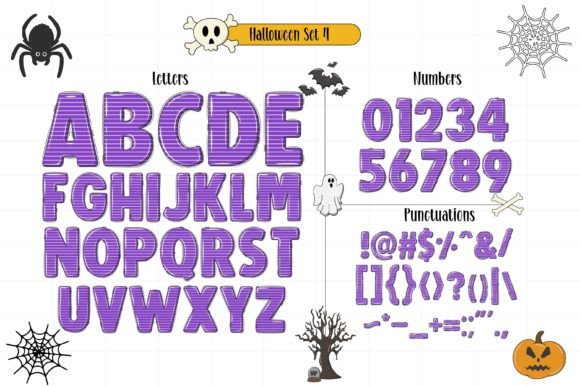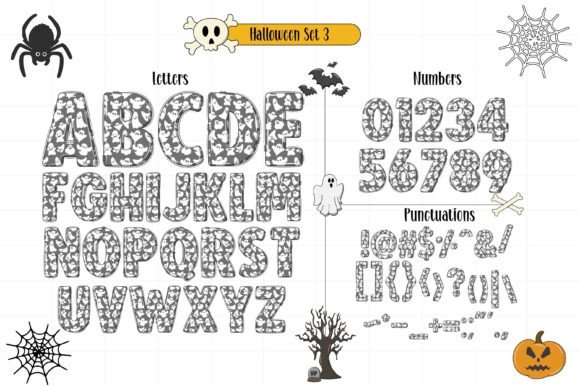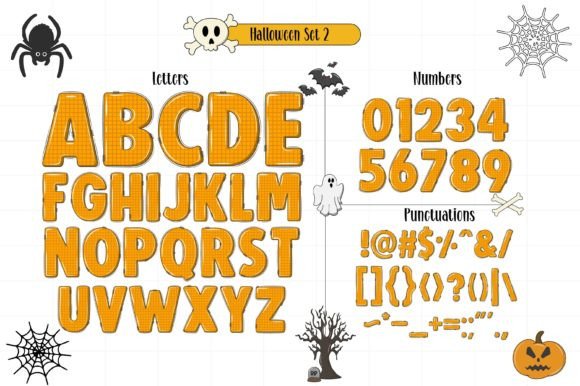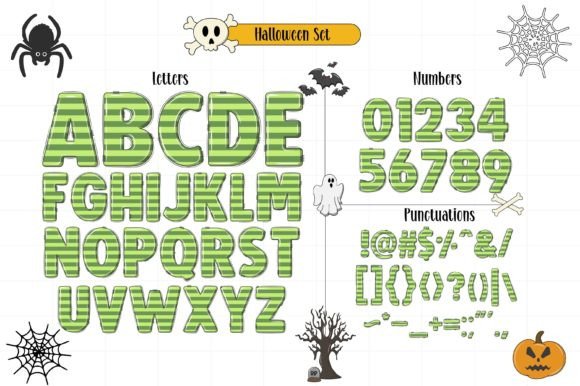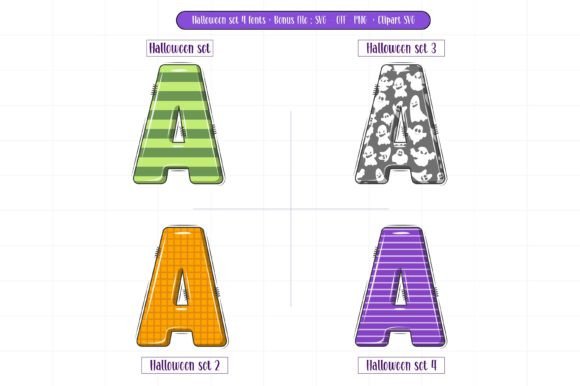
Introducing Halloween Set: The Ultimate Font for Spooky and Whimsical Creations
Are you ready to add a touch of Halloween magic to your designs and crafts? Look no further than the Halloween Set font, a playful and adorable font that’s perfect for festive Halloween creations, horror-themed projects, and whimsical designs. This versatile font combines charm and spook factor, making it an ideal choice for designers and crafters looking to create captivating and eye-catching works.
What Makes Halloween Set Font So Special?
Halloween Set is more than just a font – it’s an experience. Steeped in delightful Halloween-inspired details and colors, this font is designed to bring the spirit of Halloween to your designs and crafts. With its unique blend of playful and spooky elements, Halloween Set is perfect for:
- Halloween-themed designs, such as invitations, party decorations, and trick-or-treat bags
- Horror-themed projects, such as movie posters, book covers, and haunted house signs
- Whimsical designs, such as children’s party decorations, nursery art, and fantasy-themed illustrations
Key Features of Halloween Set Font
Here are some key features that make Halloween Set font a must-have for designers and crafters:
- Playful and Spooky Design: Halloween Set font features a unique blend of playful and spooky elements, making it perfect for a wide range of designs and crafts.
- Versatile: This font is suitable for various design projects, from festive Halloween creations to horror-themed and whimsical designs.
Tips for Using Halloween Set Font in Your Designs
Here are some tips for using Halloween Set font in your designs:
- Experiment with Different Colors: The color version of Halloween Set font features a range of vibrant and pastel colors that can add a pop of color to your designs.
- Mix and Match with Other Fonts: Halloween Set font pairs well with other fonts, so feel free to experiment with different font combinations to create a unique look.
- Use it for Seasonal and Timeless Designs: Halloween Set font is perfect for seasonal designs, but it’s also versatile enough to use for timeless designs that can be used throughout the year.
In conclusion, Halloween Set font is a versatile and playful font that’s perfect for designers and crafters looking to add a touch of Halloween magic to their creations. With its unique blend of spooky and whimsical elements, this font is sure to captivate and shine in any design or craft project. So why wait? Download Halloween Set font today and start creating your own spooky and whimsical masterpieces!